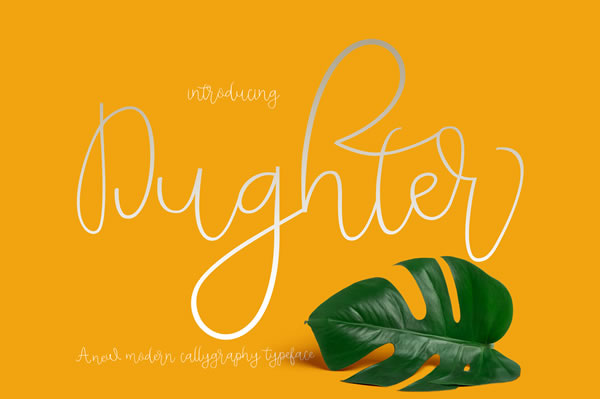
Welcome to the world of Dughter Font, where elegance and innovation intertwine to bring forth a beautiful hand-crafted calligraphy font. Designed by the renowned RT Creative 86, Dughter Font is an exquisite piece of art that will transform your creative projects into breathtaking masterpieces.
Dughter Font is a script font that epitomizes modern calligraphy, a style characterized by its fluid lines, graceful curves, and delicate strokes. Each letter in the Dughter Font family has been carefully crafted to reflect the beauty and charm of handwritten calligraphy, giving your designs an authentic and personal touch. It's a font that evokes a sense of elegance and sophistication, making it perfect for creating logos, invitations, greeting cards, and other personal and professional projects.
Dughter Font's versatility goes beyond its aesthetics. It's a font that seamlessly adapts to various creative endeavors, allowing you to explore your imagination without boundaries. Whether you're a designer, a blogger, or a creative enthusiast, Dughter Font will elevate your projects with its timeless beauty.
With Dughter Font, you're not just downloading a font; you're embarking on a journey of artistic expression. Let your words dance upon the page, gracefully flowing from one letter to another, creating a symphony of visual delight. Capture the essence of love, joy, and creativity with every stroke, leaving a lasting impression on your audience.
Unleash your imagination and embrace the endless possibilities that Dughter Font offers. Its charm, elegance, and versatility will help you create designs that captivate hearts and leave a lasting impression.